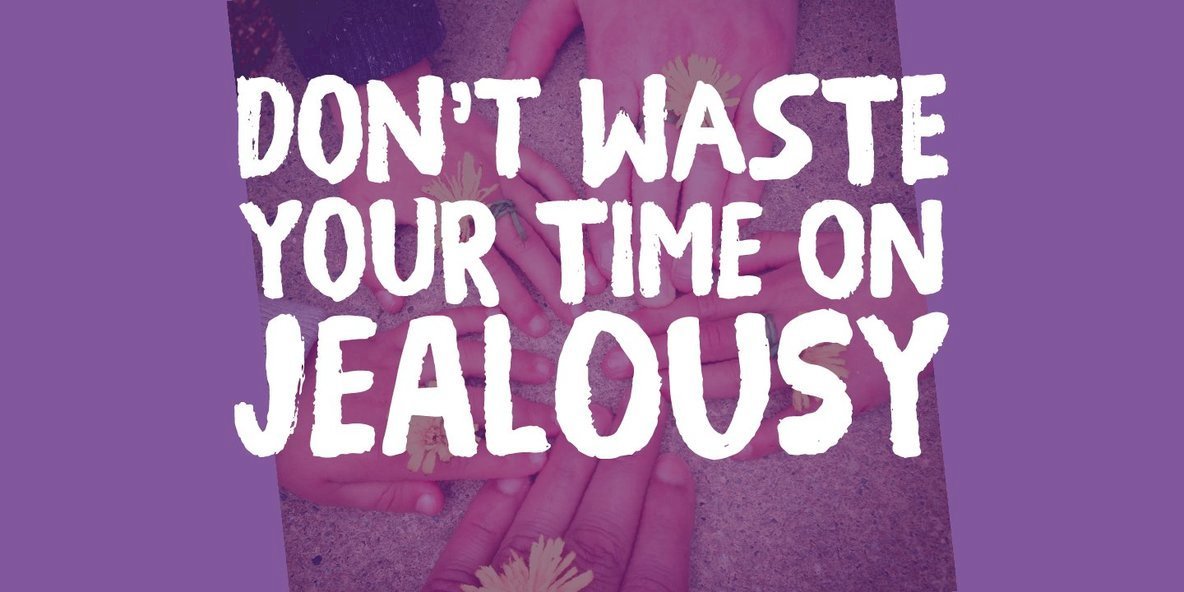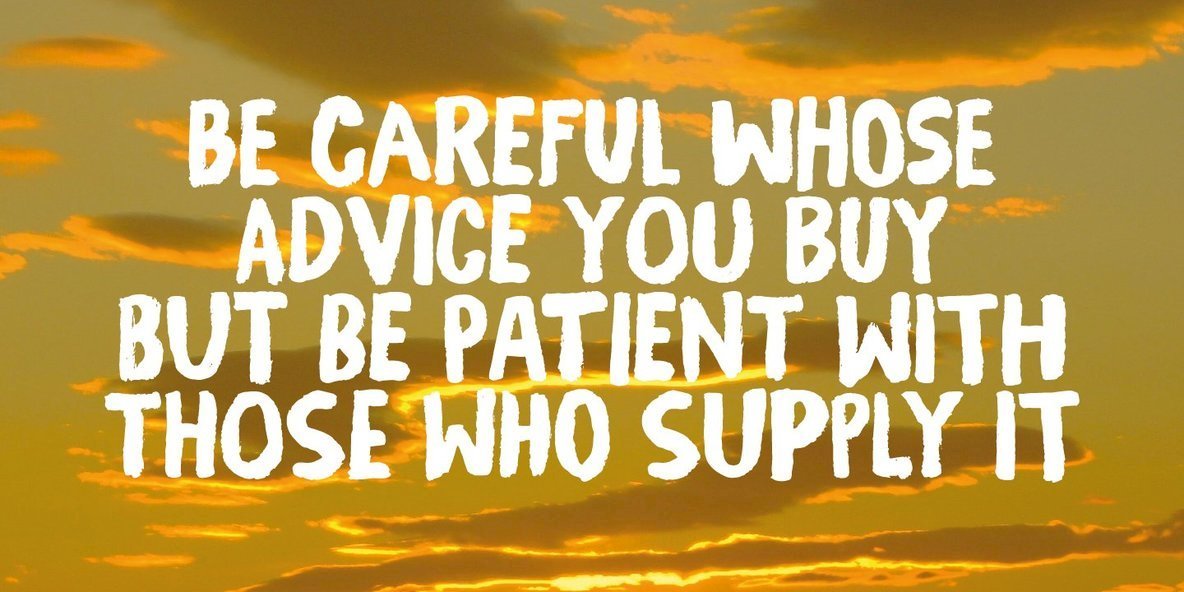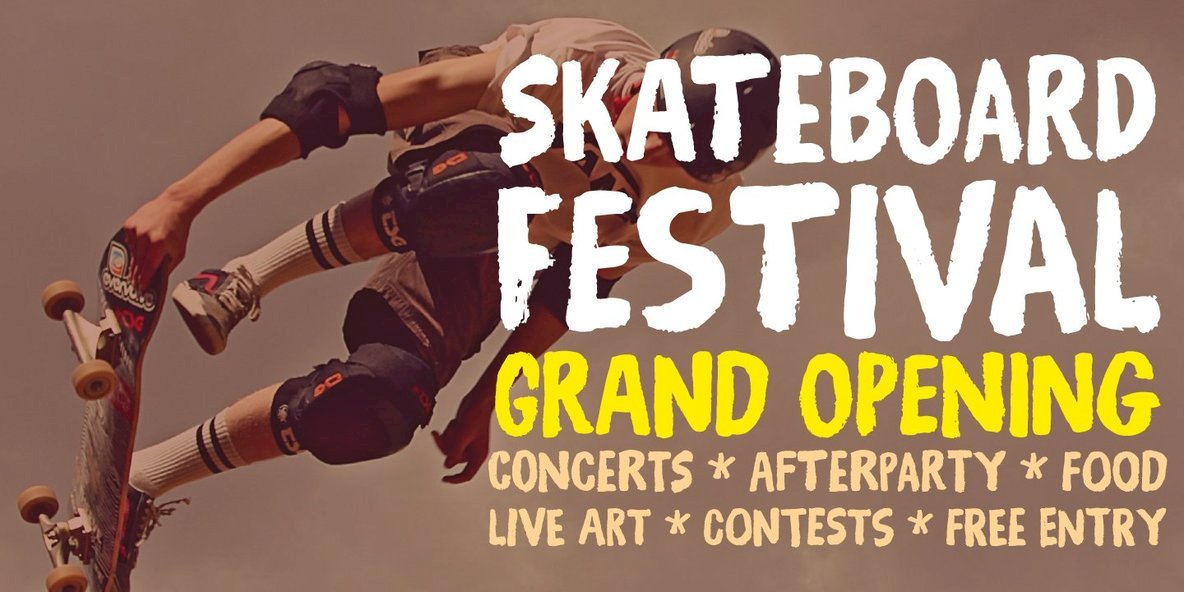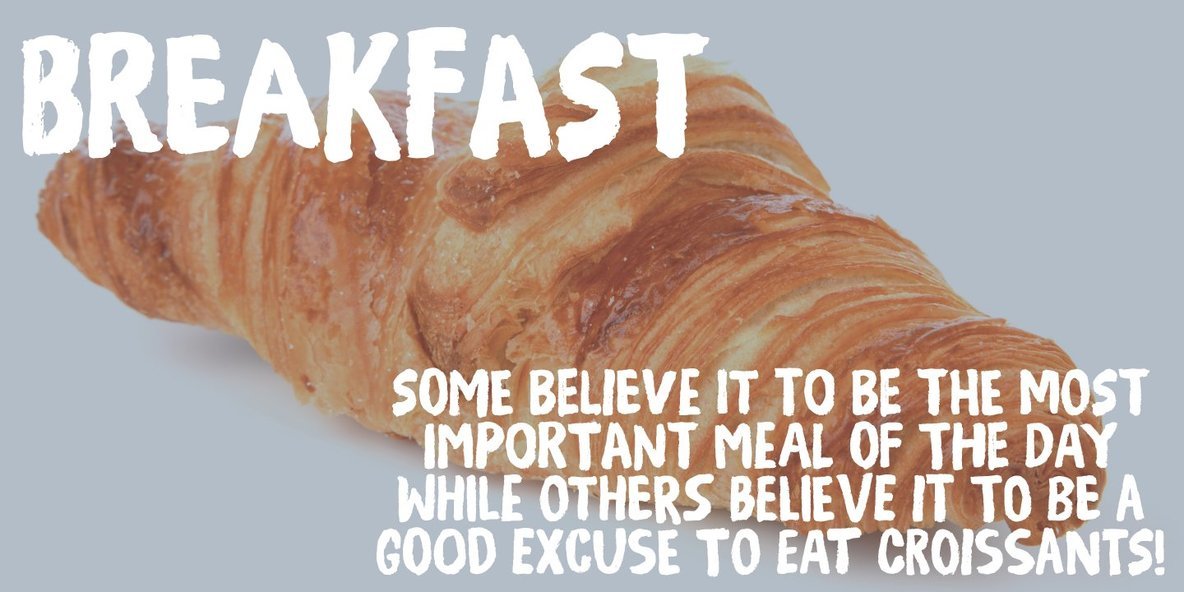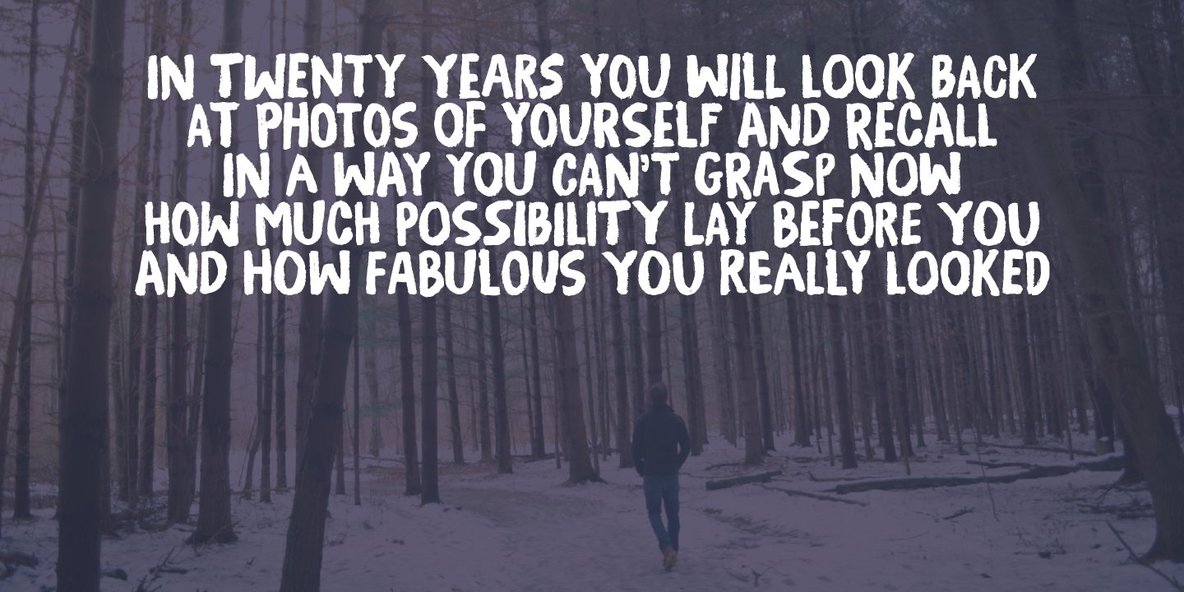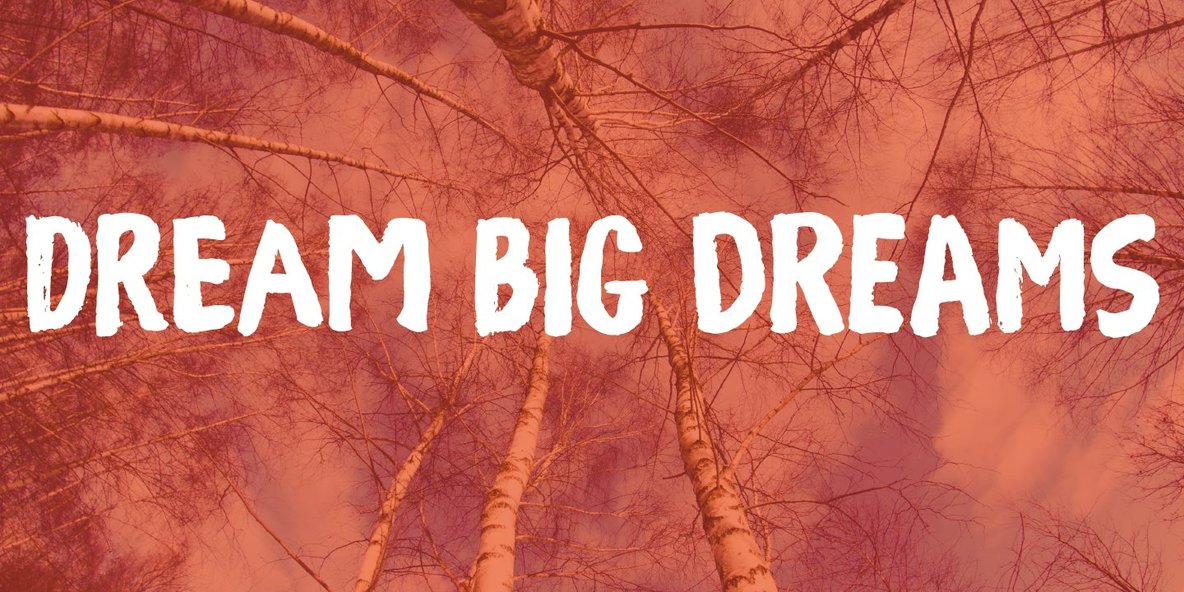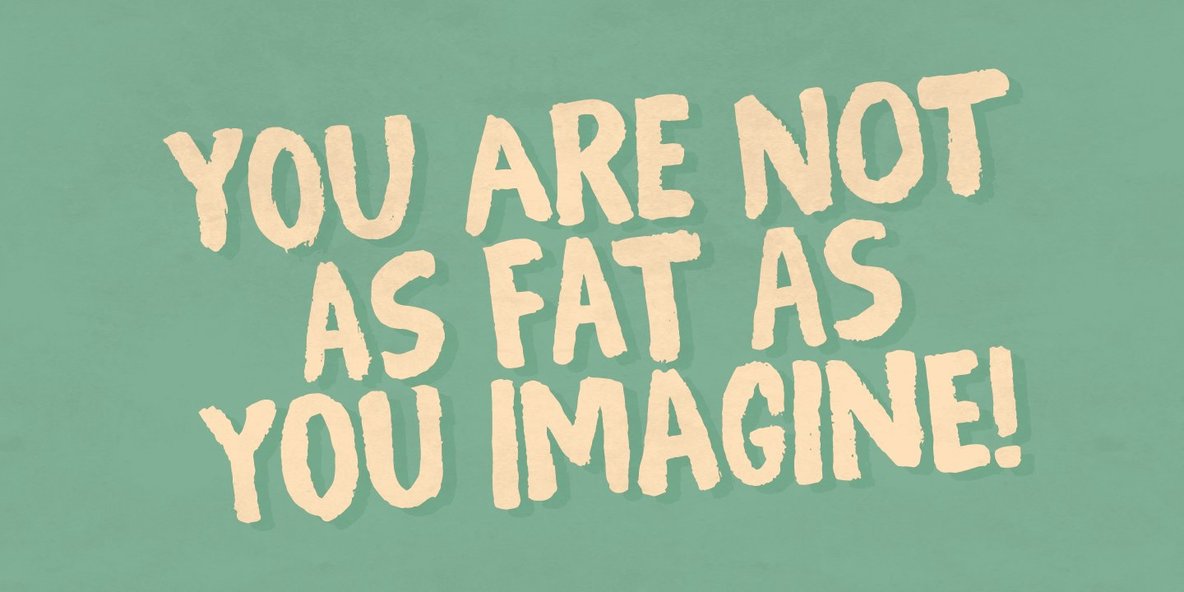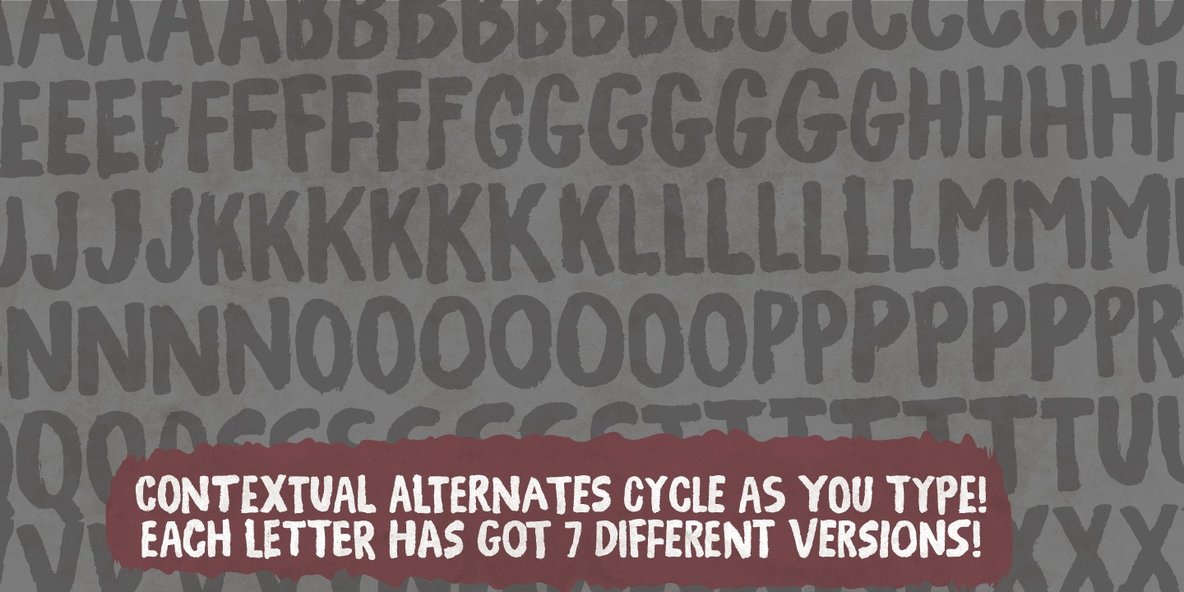
Generous Font
Generous
Generous is painted with a somewhat dry brush. That’s why it looks so authentic!
Comes with contextual alternates (7 different versions of each letter!) and multiple language support!